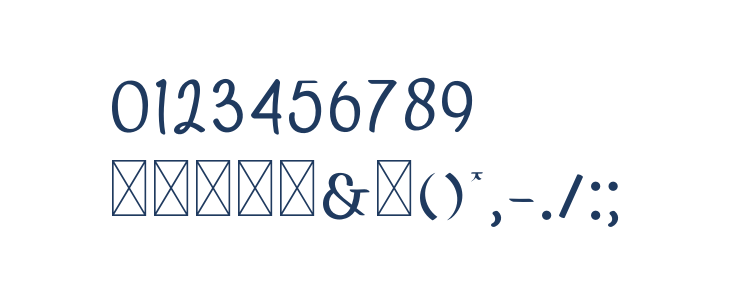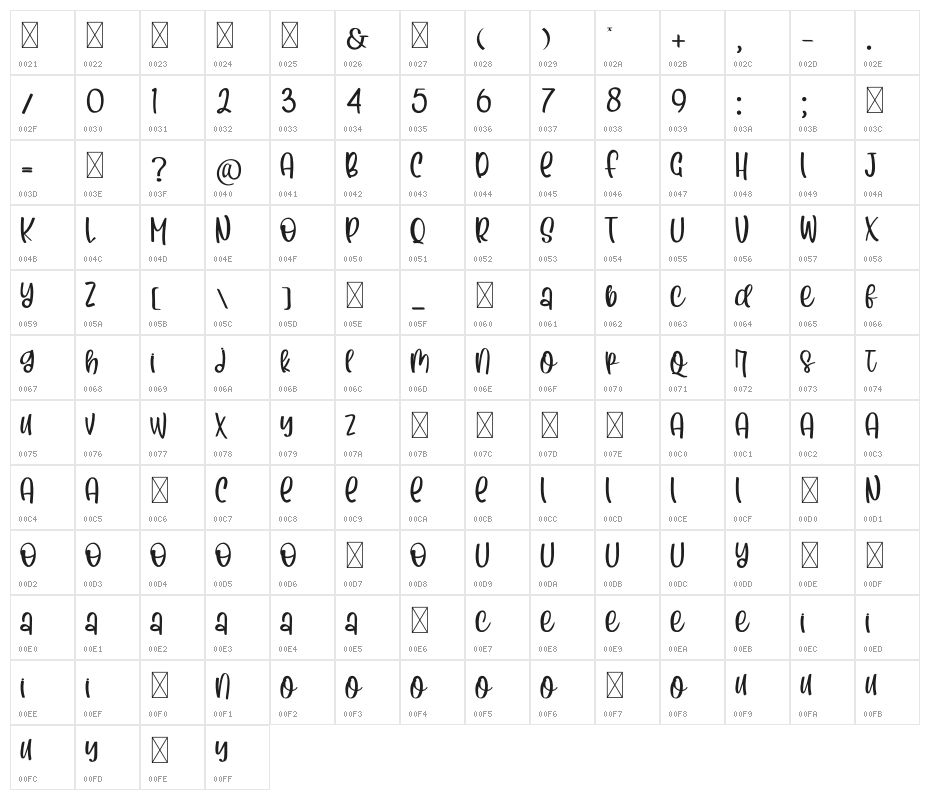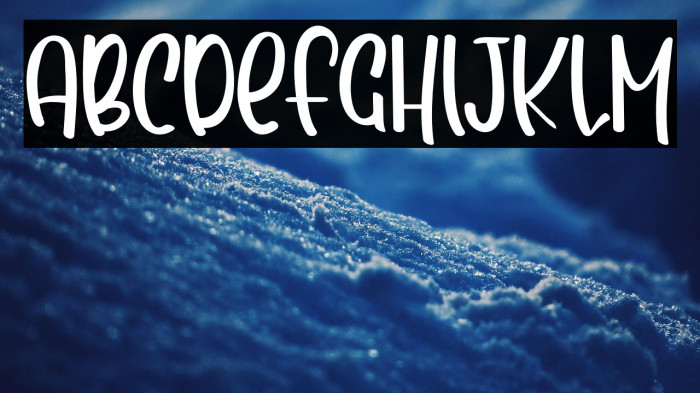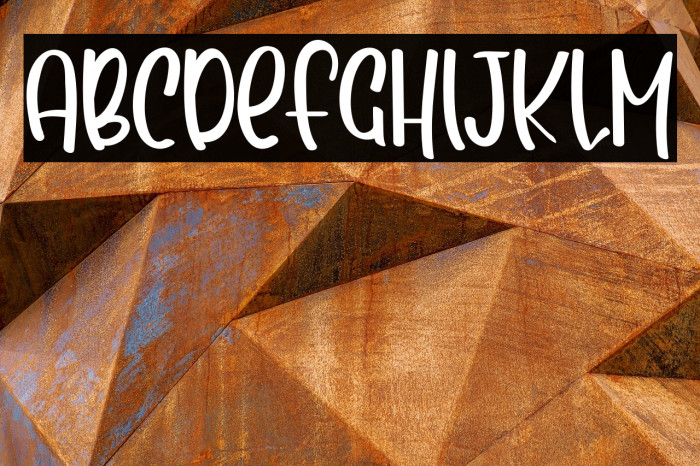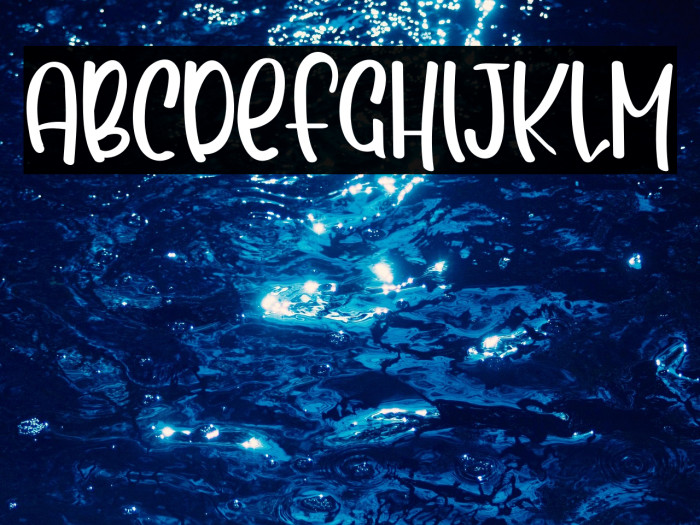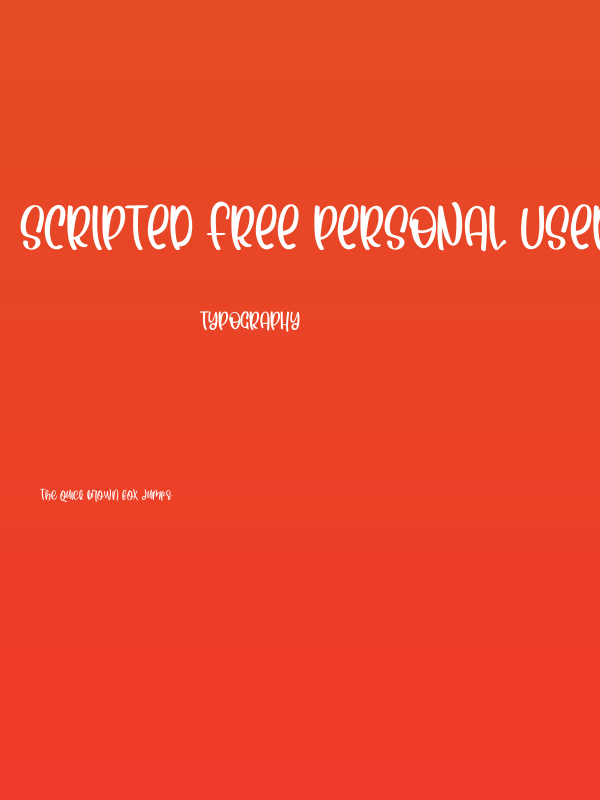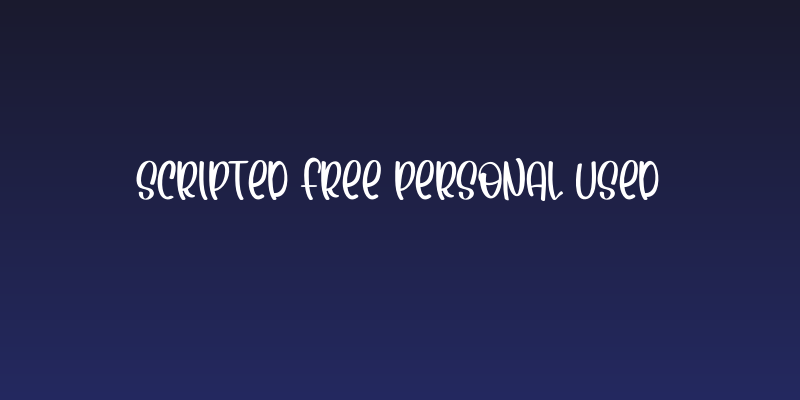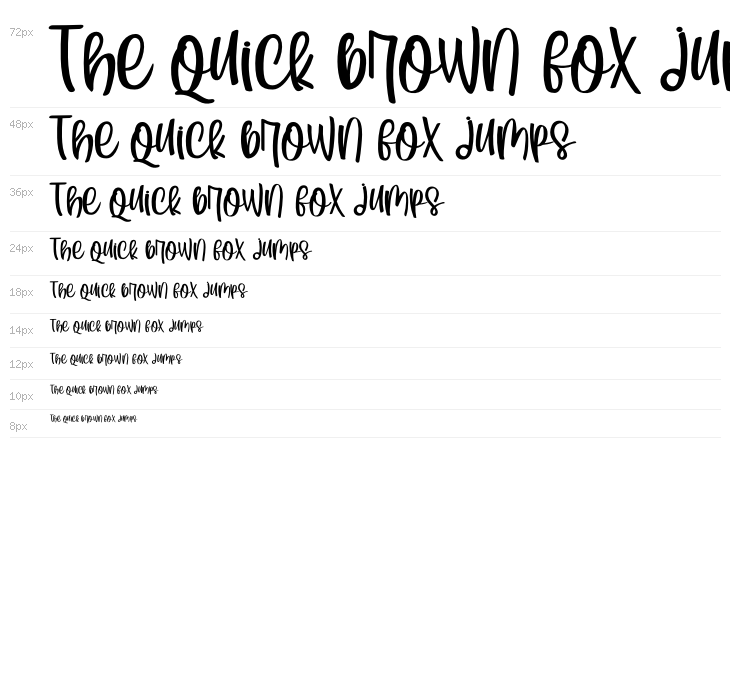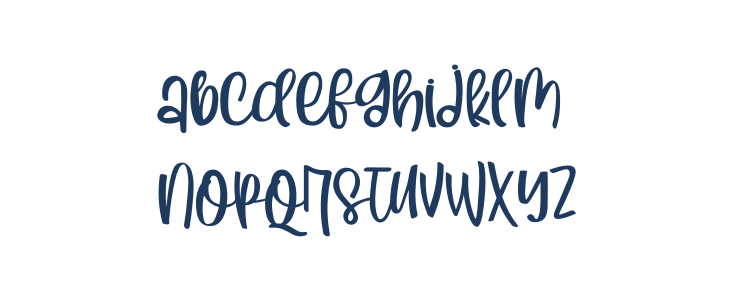
Scripted Free Personal Used Font
Scripted Free Personal Used Description
This font features a playful and energetic script style, characterized by its flowing, hand-drawn appearance. The letters are bold and slightly slanted, giving a sense of movement and dynamism. The uppercase and lowercase letters are well-balanced, with a consistent stroke width that maintains readability. The numbers and special characters complement the alphabet with a similar lively style. This font is ideal for projects that require a personal touch, such as invitations, greeting cards, or branding materials that aim to convey friendliness and approachability.
Overall StyleDecorative
Use CaseHeadlines, Logos
Proposed ProjectsIdeal for invitations, greeting cards, branding materials, and any project needing a personal touch.